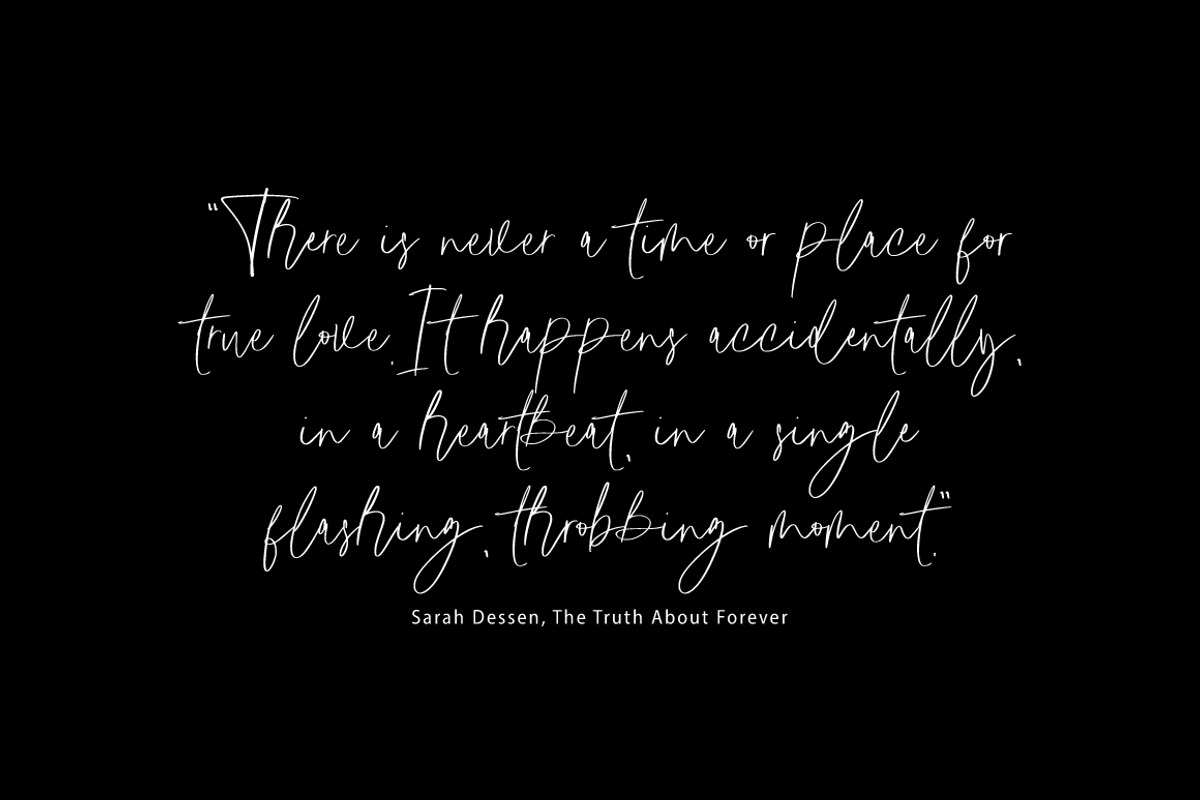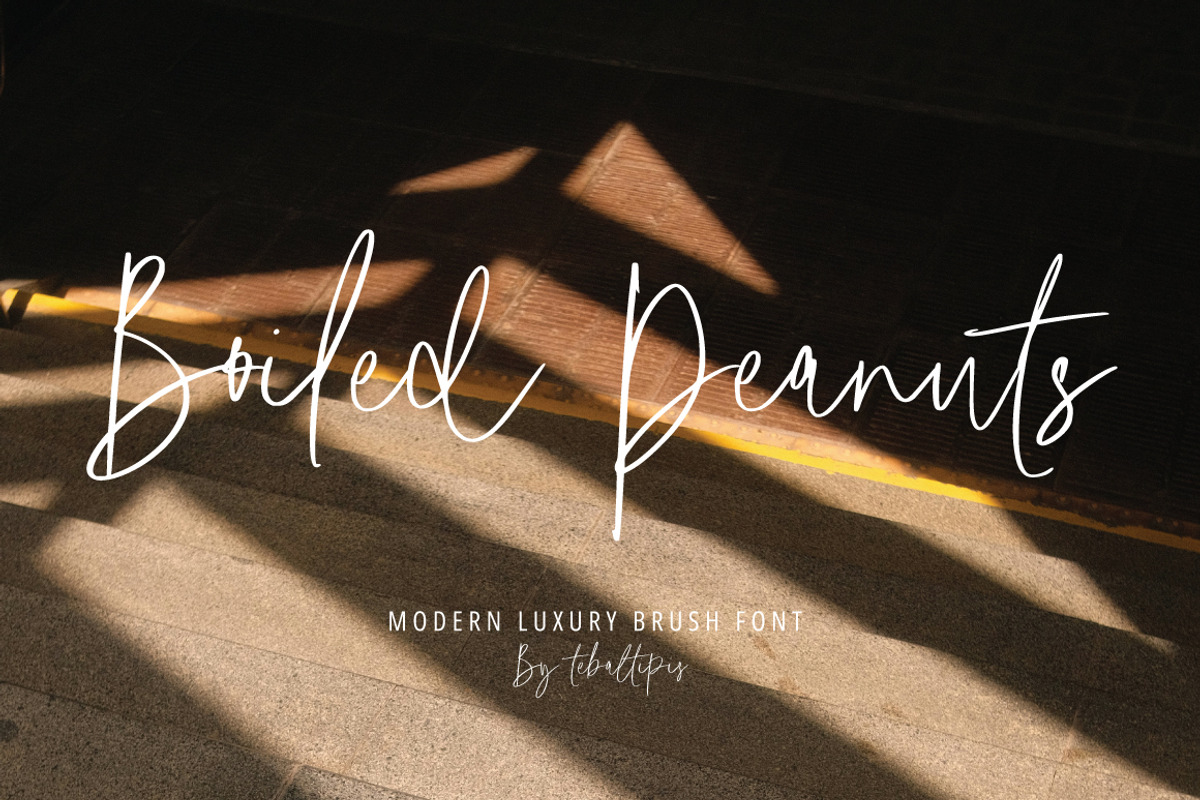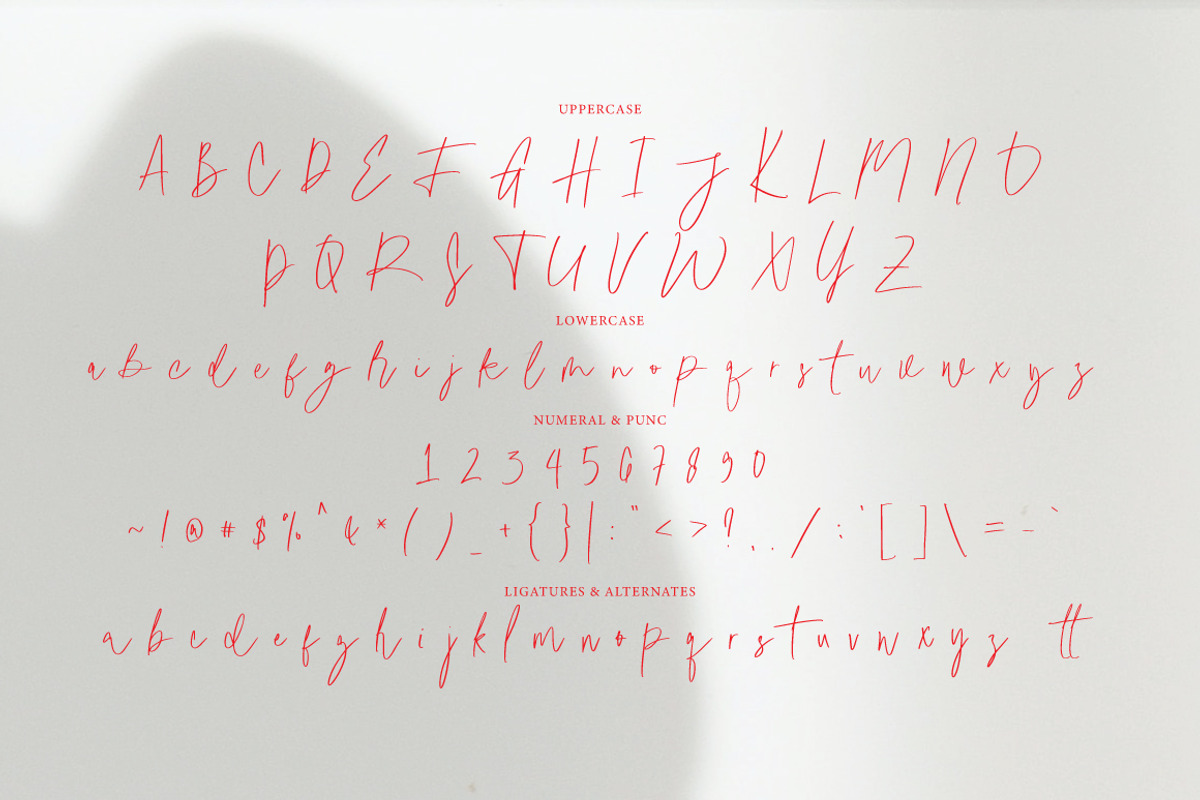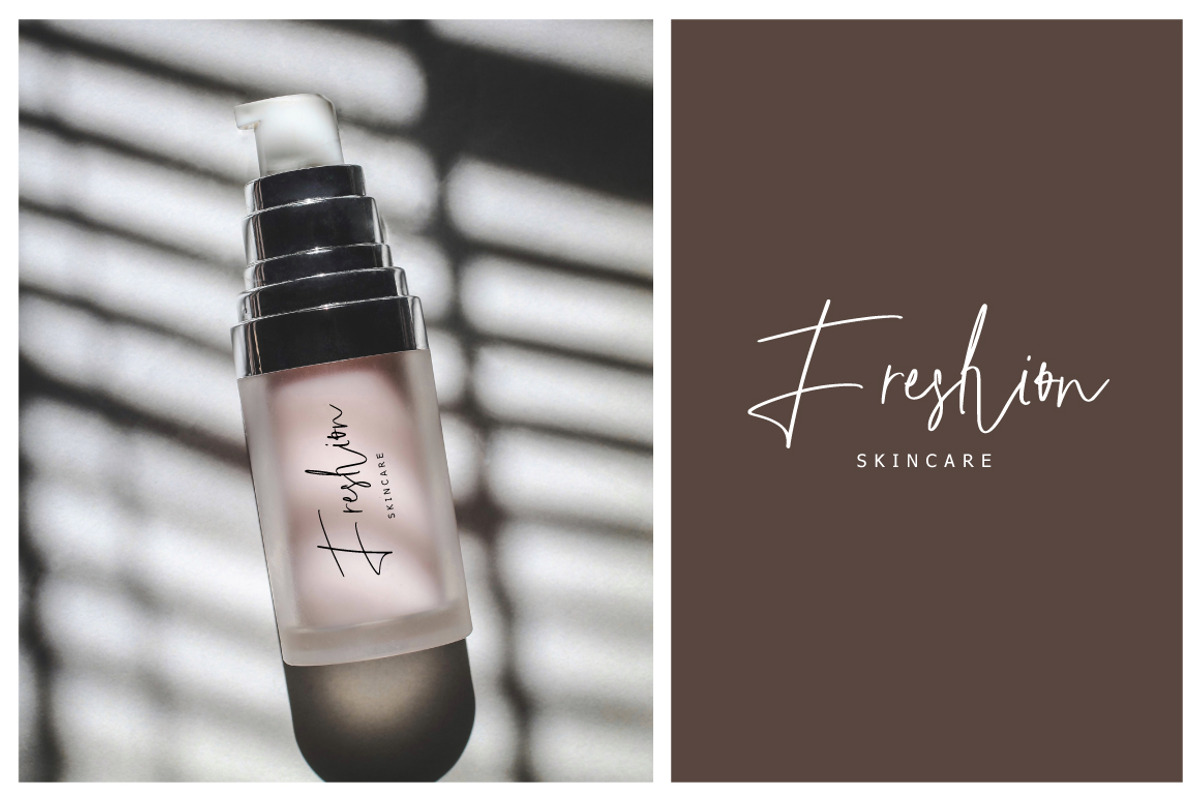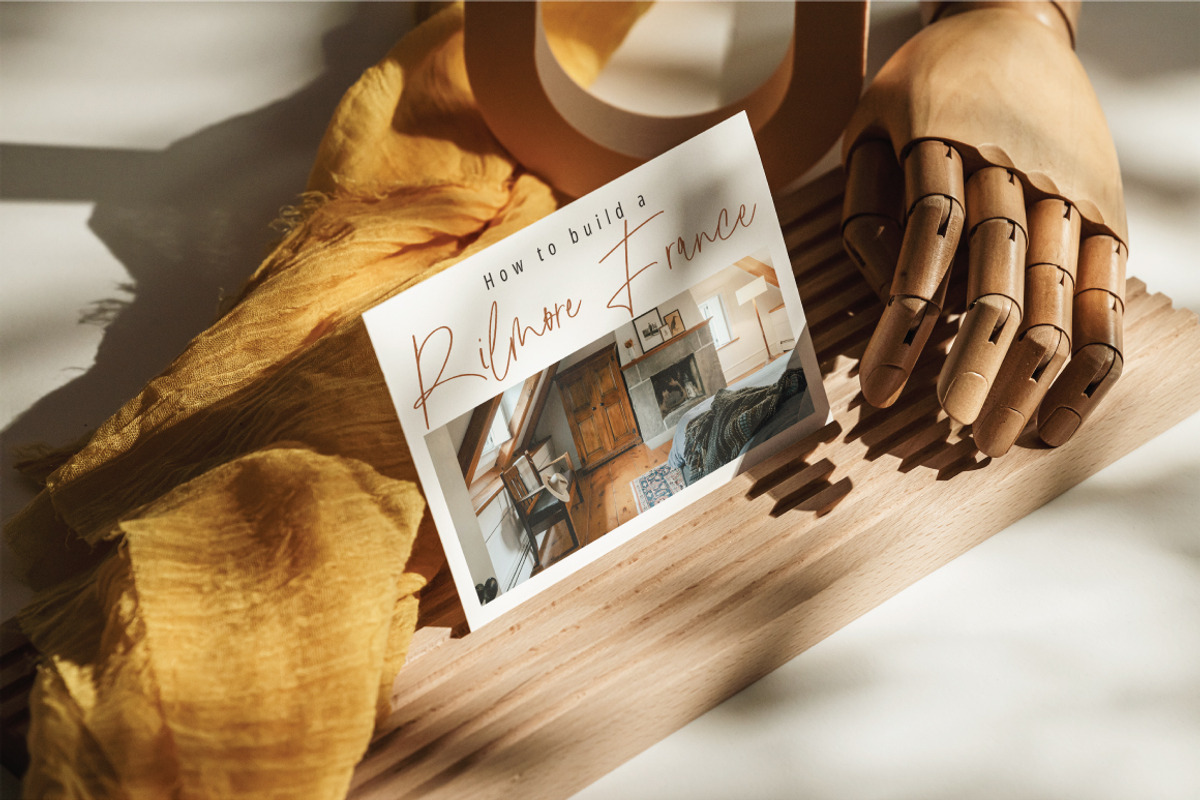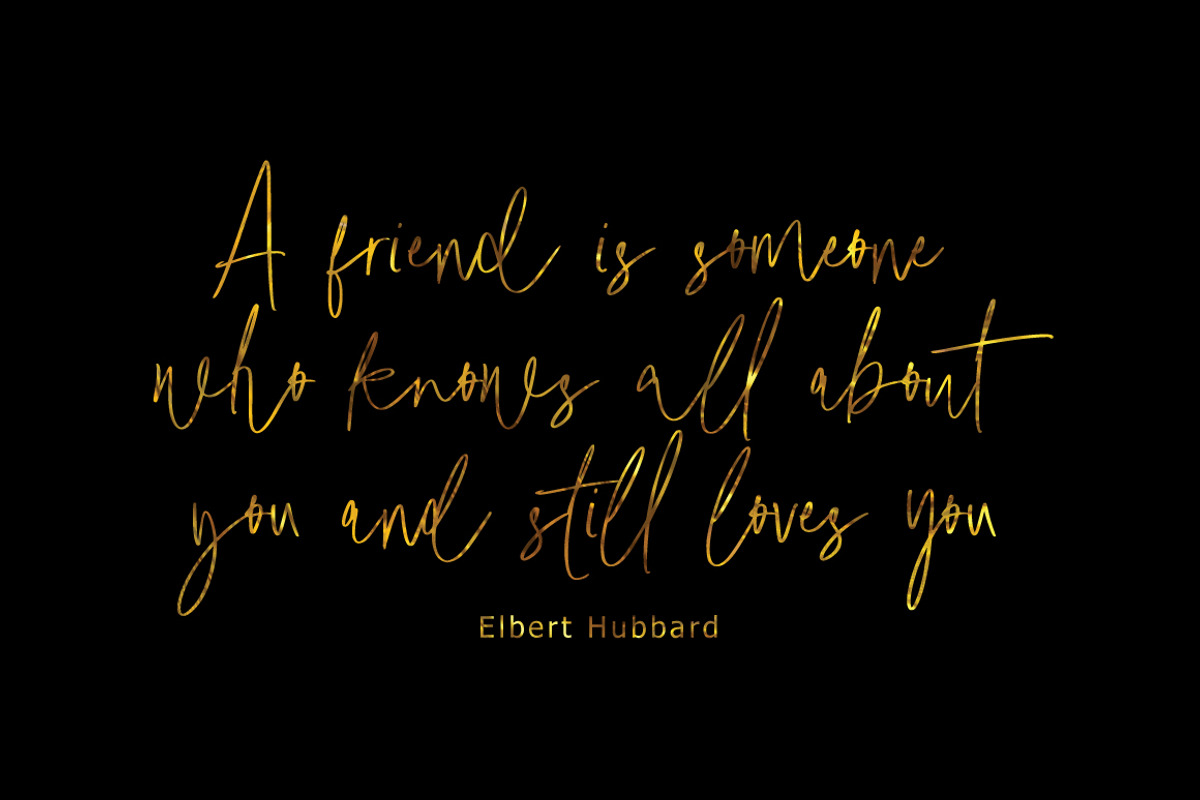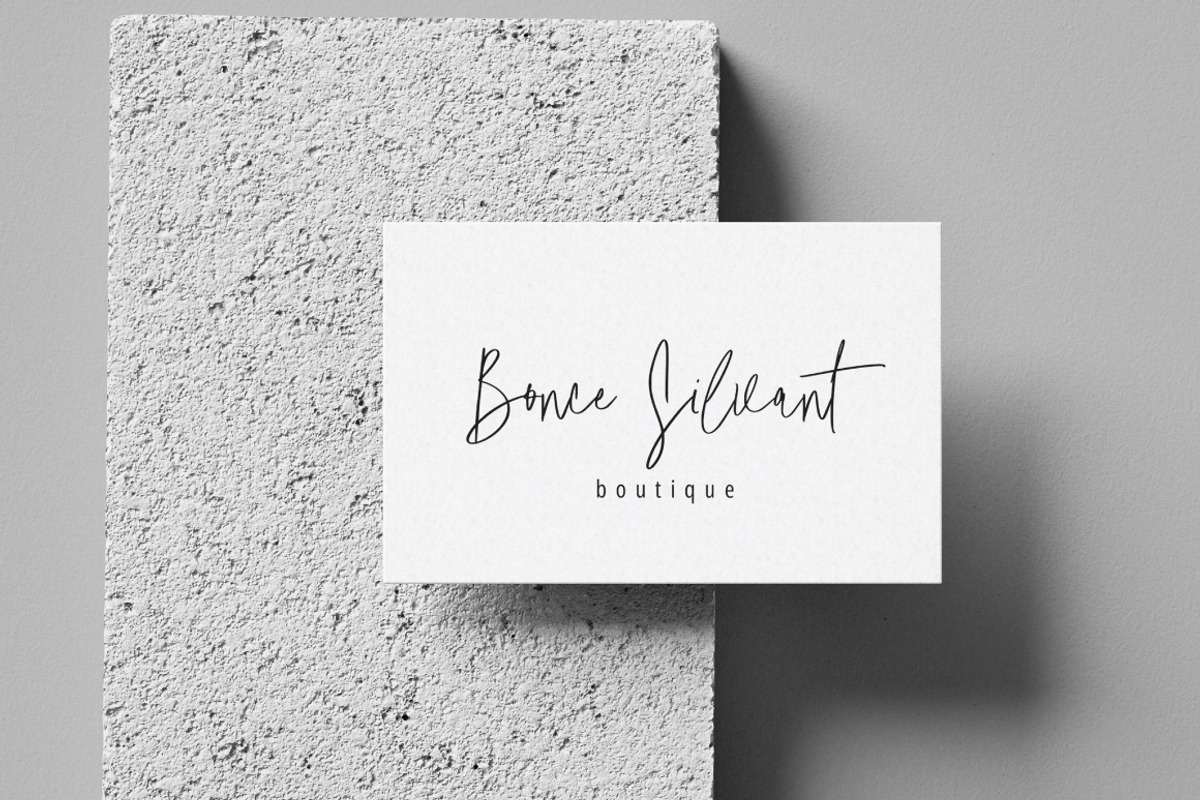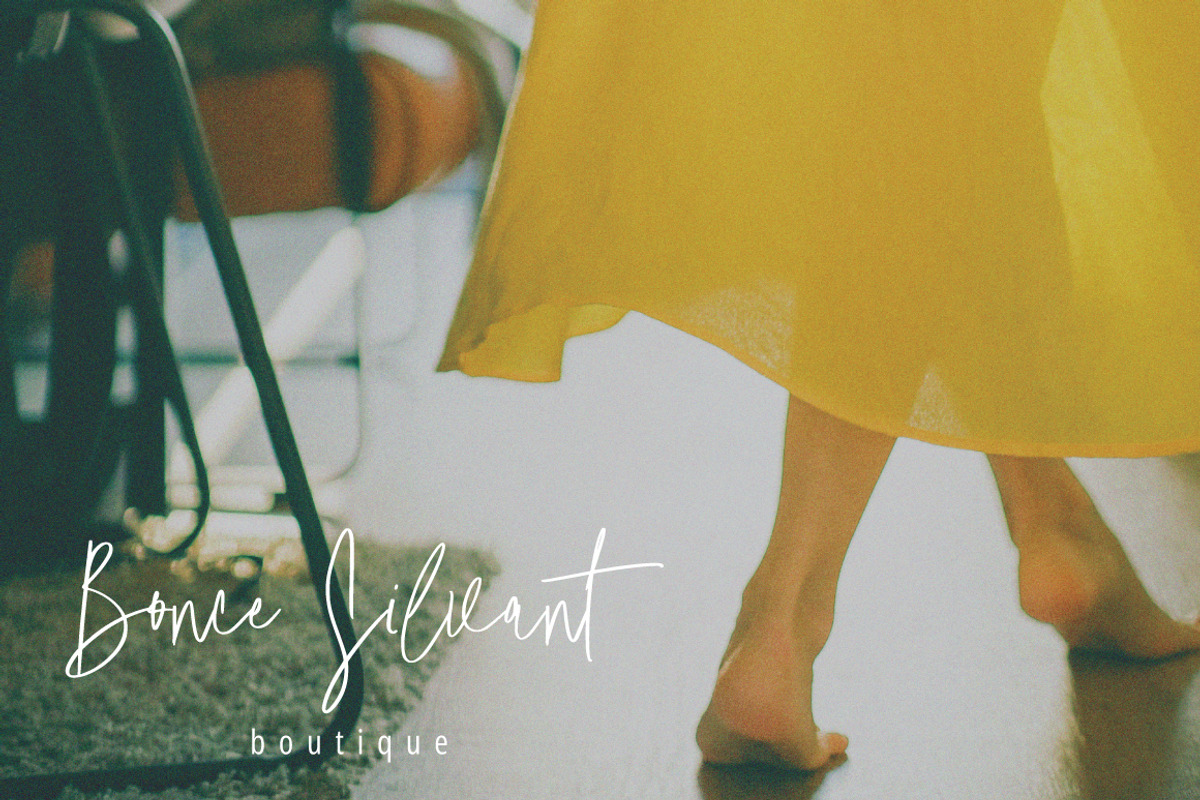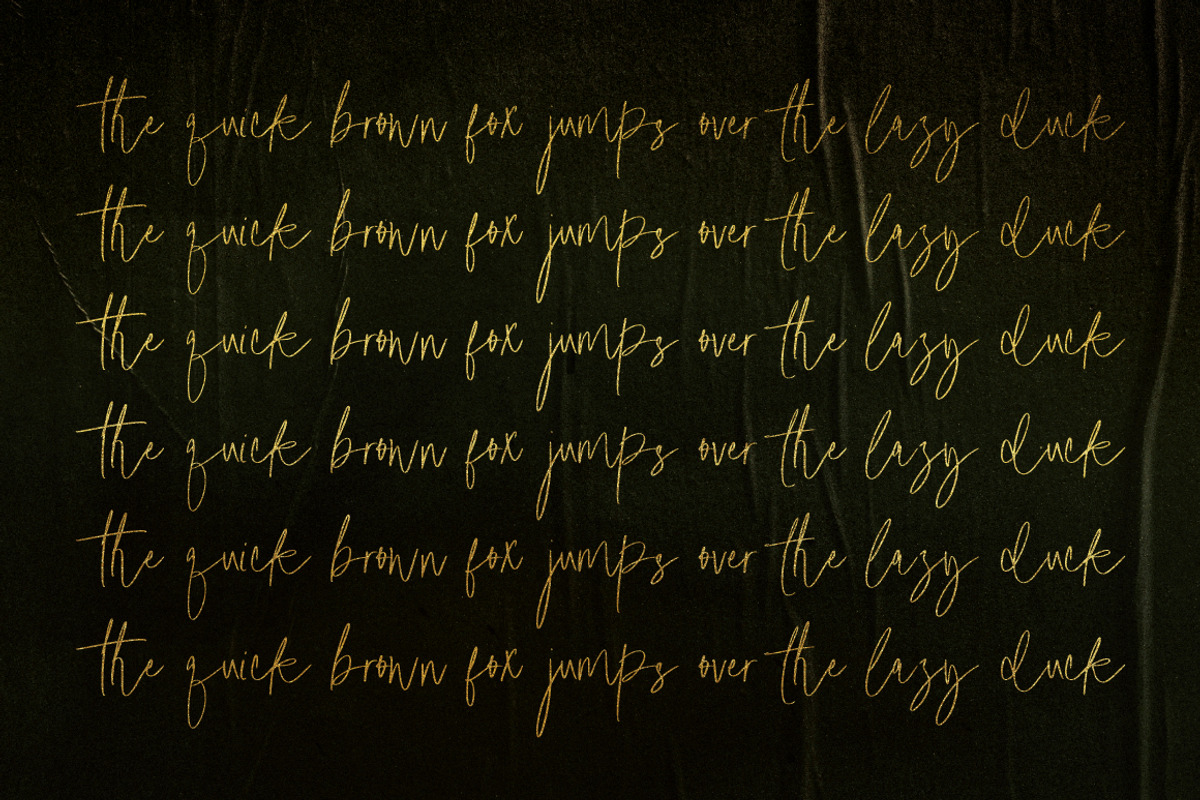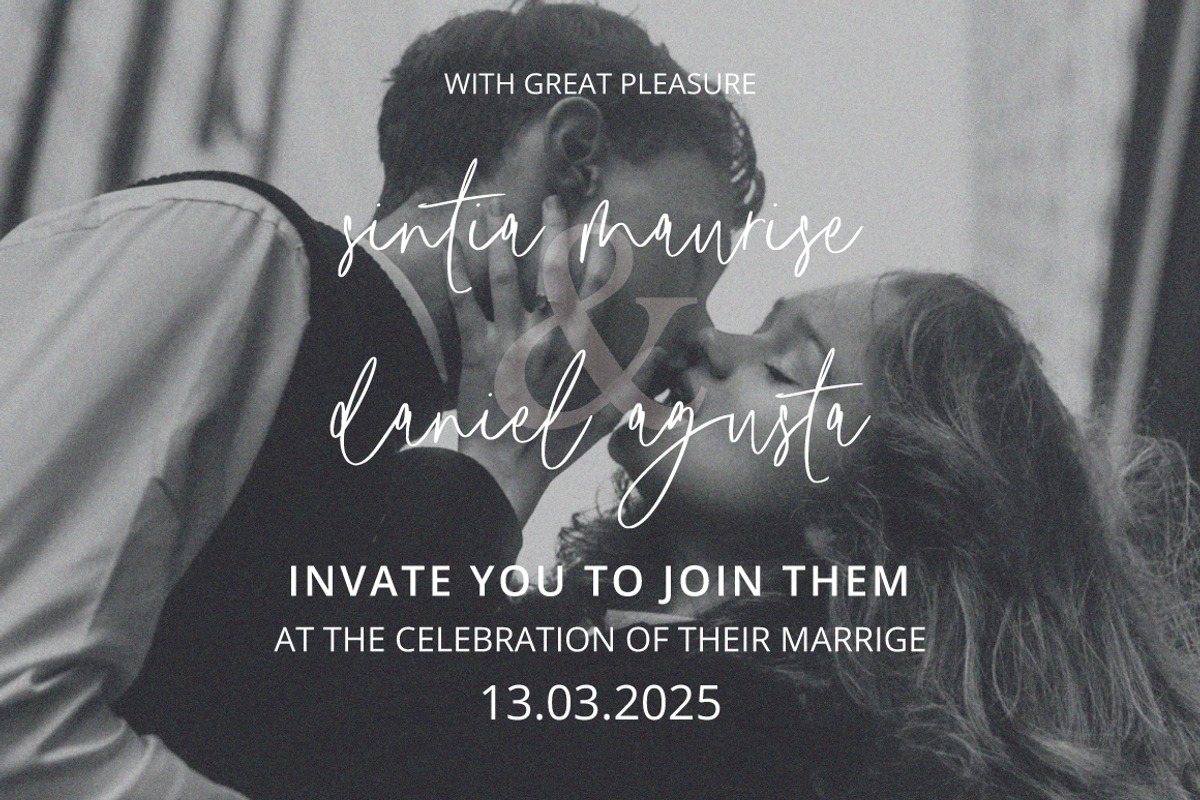
Boiled Peanuts - Casual Signature
Boiled PeanutsSignature with a handmade Signature style, decorative characters and a dancing baseline!
Boiled Peanuts Signature with 130+ glyphs. The alternative characters were divided into several Open Type features such as Swash, Stylistic Sets, Stylistic Alternates, and Ligature. The Open Type features can be accessed by using Open Type savvy programs such as Adobe Illustrator, Adobe InDesign, Adobe Photoshop Corel Draw X version, And Microsoft Word. And this Font has given PUA unicode (specially coded fonts). so that all the alternate characters can easily be accessed in full by a craftsman or designer.
Boiled Peanuts Signature Features :
Uppercase & Lowercase International Languange & Symbols Support Punctuation & Number PUA Unicode Range Standard Ligatures Discretionary Ligatures Stylistic Alternates Stylistic Set.